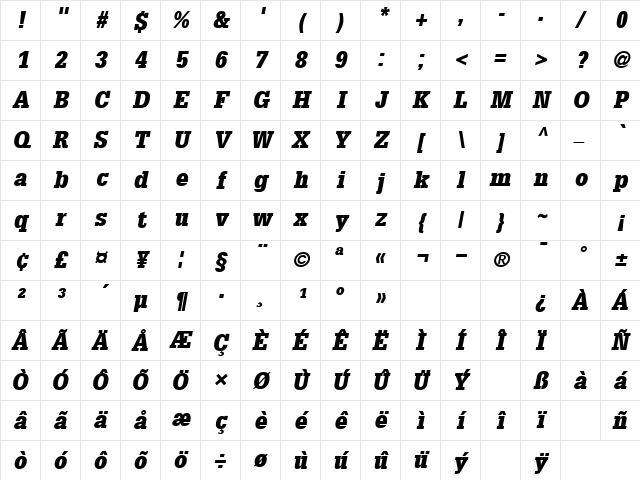
EgotistCondBlack is a composed and adaptable typeface that performs quietly and consistently across a wide range of design contexts. The slanted form adds forward momentum and visual energy. Its narrow stance lets it pack a punch even in space-constrained designs.
Pro Tip: Use EgotistCondBlack for emphasis, pull quotes, and subheadings where its slanted energy can add rhythm to the layout.